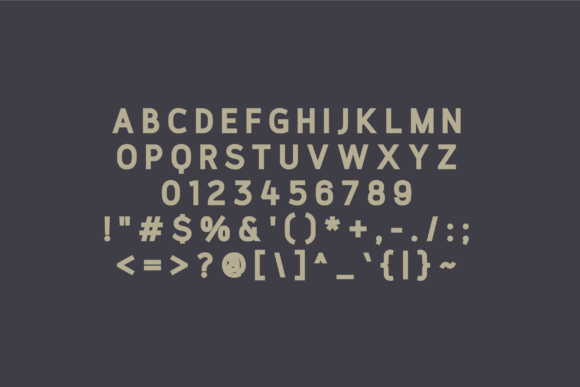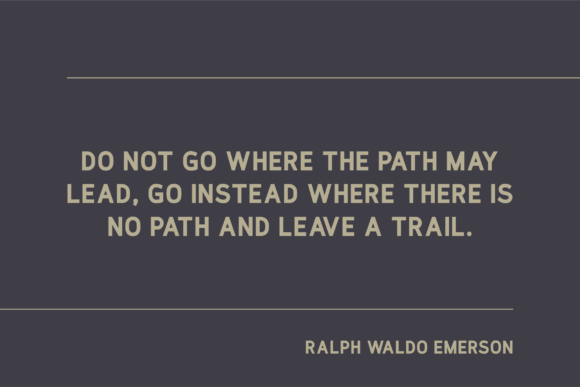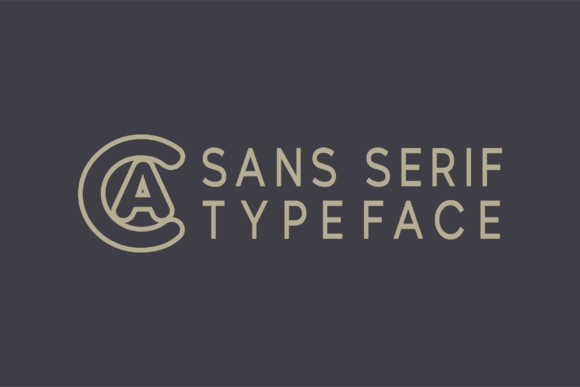
Introduction to Recessia Font
Have you ever found yourself staring at a blank canvas, struggling to bring your creative vision to life? The blank page can be intimidating, but what if you had the perfect design tool to give you that extra boost of confidence? Enter Recessia Font, a bold, modern, all caps sans-serif font designed to make your designs stand out.
As a designer, you’re always on the lookout for the perfect combination of style and functionality. Recessia Font delivers just that – a clean, impactful visual that’s perfect for logos, headlines, posters, packaging, and digital content. With its transparent background and high-quality design, this font is a valuable addition to any design resource. And the best part? It’s available for free download, making it an ideal choice for creative projects on a budget.
Whether you’re working on a branding project, tech startup, or fashion campaign, Recessia Font adds a professional touch without being too complex. Its simplicity and versatility make it a go-to choice for designers who want to make a statement without sacrificing clarity.
Key Features of Recessia Font
- High-quality design resource with a unique aesthetic, ideal for creative projects that require a touch of elegance and sophistication.
- Comes in a single weight, perfect for projects where a consistent font style is desired.
- Perfect for use in a variety of design contexts, from branding and advertising to editorial and digital media.
Honest Review: Recessia Font
As a designer, I’m always on the lookout for high-quality design resources to enhance my creative projects. Recently, I stumbled upon the Recessia Font, and I’m excited to share my honest review with you.
Here’s what I like about the Recessia Font:
- ✨ The font offers a transparent background, allowing for seamless integration with any design element.
- ✨ The font’s modern design makes it perfect for a wide range of creative projects, from logos to editorial content.
- ⚠️ The font’s character set is somewhat limited, making it less suitable for projects that require a wide range of characters.
Overall, I’m impressed with the Recessia Font’s quality and versatility. While it has some limitations, it’s a great resource for designers who need a modern, free font with a transparent background. I’d definitely recommend it for creative projects that require a clean and sleek design aesthetic.
The Recessia Font is a high-quality, free download design resource ideal for creative projects that require a unique and modern touch. This versatile font features a transparent background, making it easy to customize and integrate into your designs.
Tips for Getting the Most Out of Recessia Font
Experiment with different font sizes and colors to create a unique look.
Use the transparent background feature to create a seamless design.
The Recessia Font is ideal for:
Branding and marketing materials.
Infographics and data visualizations.
Web design and development.